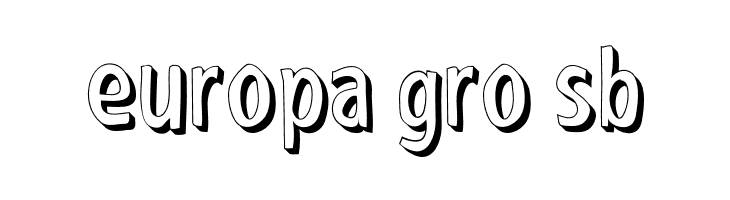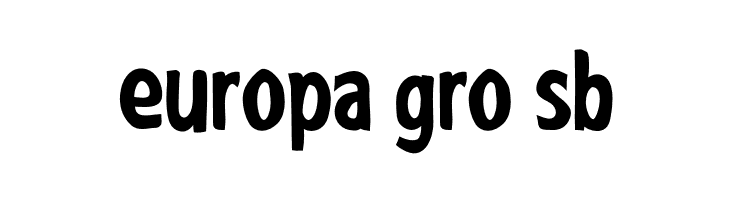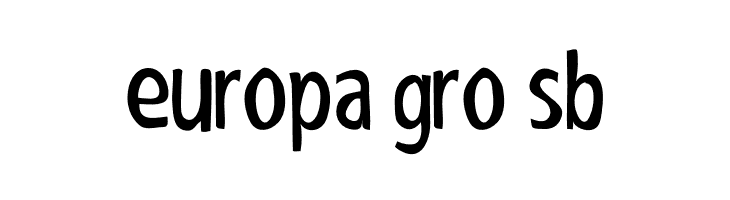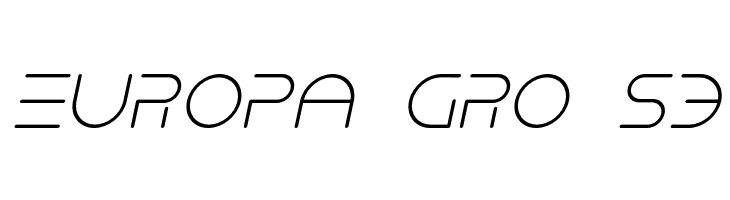
A modern, tech-inspired font using smartphone imagery for a futuristic look.
A playful, hand-drawn comic-style font with bold outlines and a shadow effect.
A bold, hand-drawn comic style font with a playful and whimsical appearance.
A playful, hand-drawn font with a whimsical, shaky appearance.
A sleek, modern italic font with a futuristic design and continuous line style.
A futuristic, minimalist font with geometric shapes and consistent stroke width.
A futuristic, geometric font with rounded, continuous lines and a modern aesthetic.
A sleek, futuristic font with thin, continuous lines and a minimalist aesthetic.
A modern, rounded font with a futuristic and fluid design.
A playful, elongated font with a hand-drawn, artistic style.